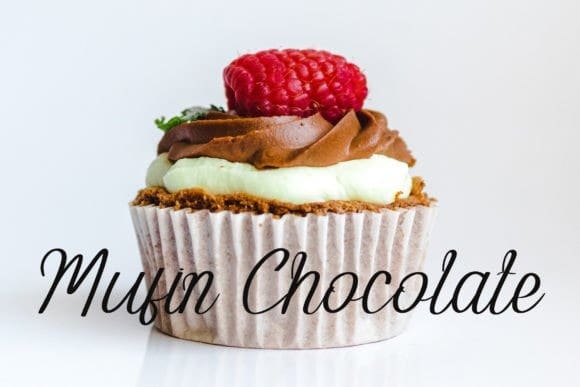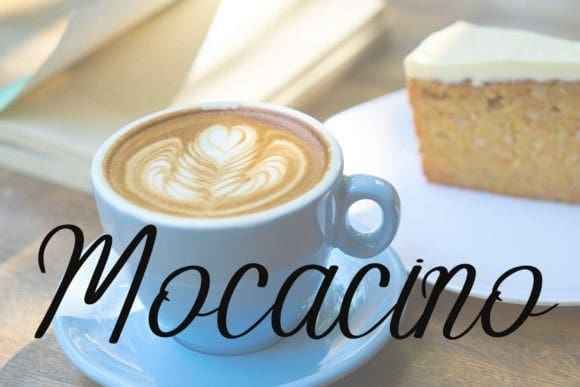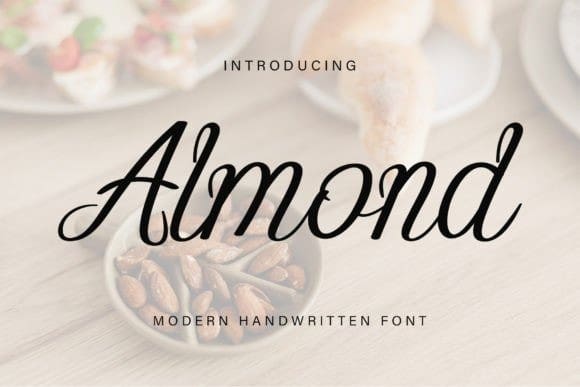
Almond Script Typeface
Almond Script Typeface is a cute handwritten font with a fun and quirky personality. Its irregular and playful letterforms create a sense of whimsy and individuality, making it perfect for designs that require a touch of uniqueness. Its natural, handwritten style adds a charming and personal feel to any project.